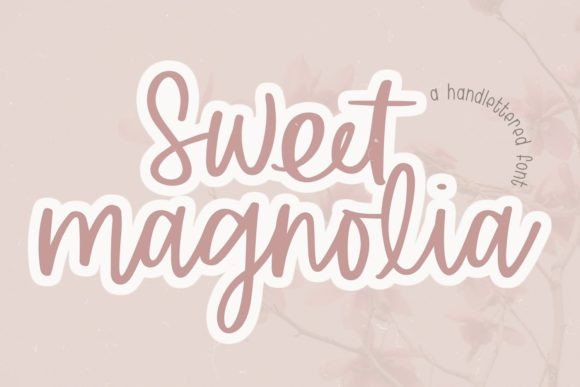
Discover Sweet Magnolia Font, the Exquisite Script Font That Will Make Your Designs Bloom
Unleash the charm and elegance of Sweet Magnolia, a captivating script font that will add a touch of romance to your creative projects. Inspired by the delicate petals of magnolia flowers, this hand-lettered font exudes a sense of playfulness and warmth that will instantly capture hearts.
Express Your Love and Creativity with Sweet Magnolia Font
Whether you're designing wedding invitations, creating personalized cards, or crafting heartfelt social media posts, Sweet Magnolia is the perfect font to convey your emotions and messages with grace and style. Its smooth, flowing lines dance across the page like a gentle breeze, enveloping your words in an aura of timeless beauty.
Design with Ease and Versatility
With Sweet Magnolia, you'll find endless opportunities to bring your creative visions to life. Its elegant curves and playful strokes make it a versatile choice for a wide range of projects, from rustic wood signs and custom T-shirts to eye-catching blog posts and social media graphics.
Embrace the Magic of Sweet Magnolia Font
Step into a world of enchantment with Sweet Magnolia, a font that will transform your designs into stunning works of art. Its enchanting charm will captivate your audience, leaving them enchanted and inspired. Let Sweet Magnolia be the key to unlocking your creativity and creating designs that resonate with beauty and emotion.